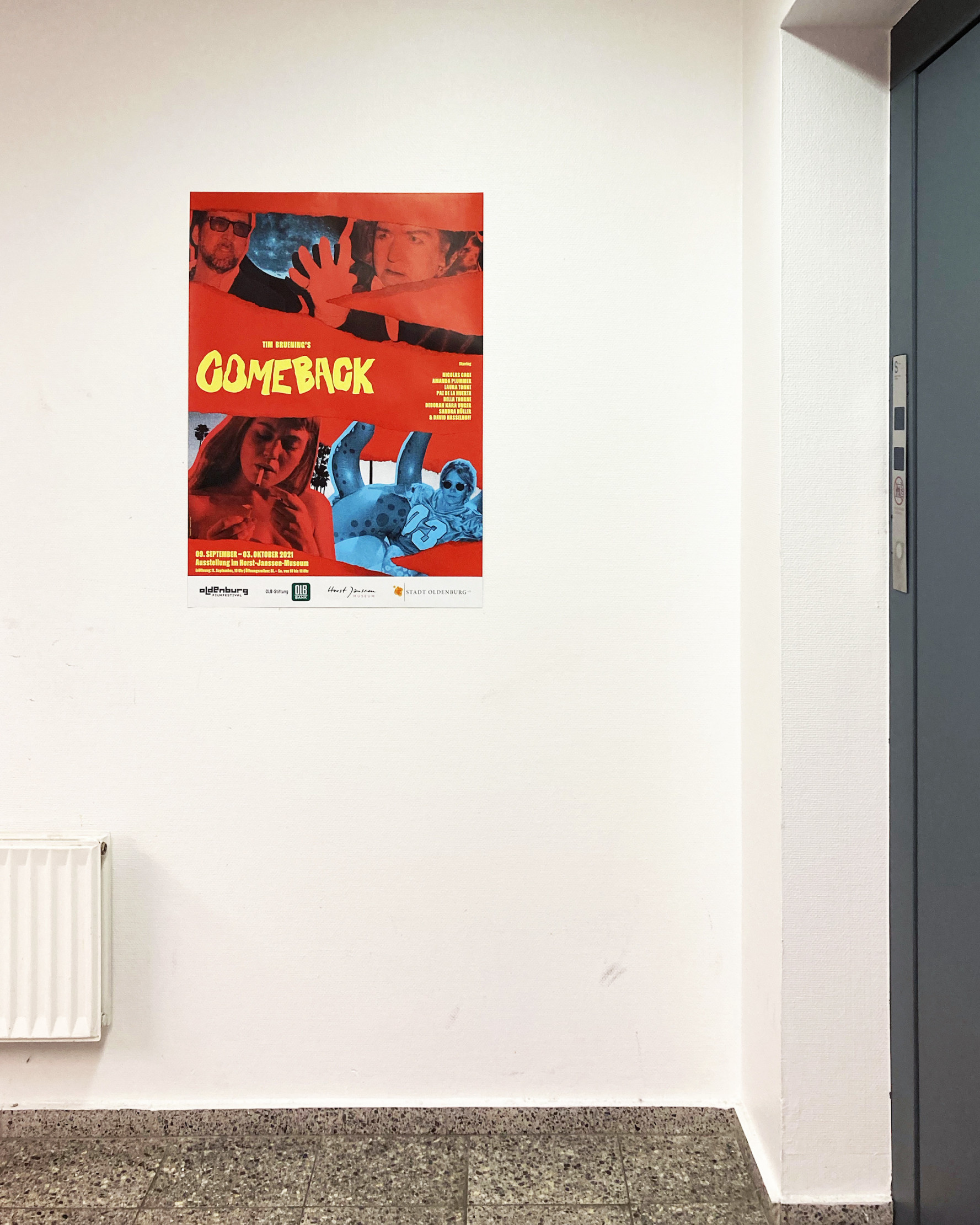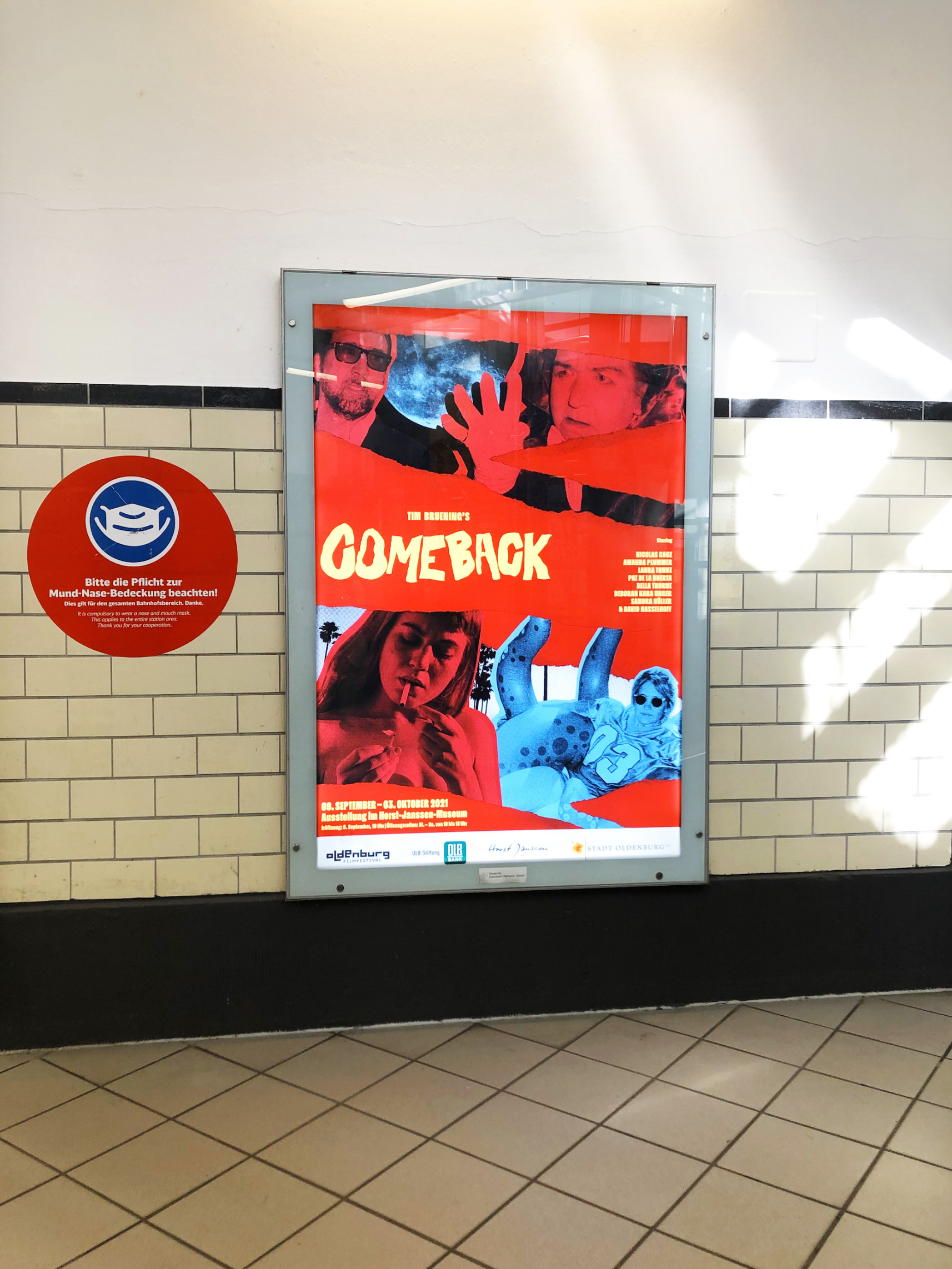
Comeback
Poster
Poster and Flyer for the exhibition COMEBACK by photographer Tim Bruening at the Horst-Janssen Museum in Oldenburg. In his work, the photographer explores the theme of cinema; showing images of stars on the red carpet in Cannes and at the Oldenburg Film Festival, accompanied by actual and soon-to-be film sets. As the icing on the cake, photographs of his grandma staged as various popular film characters are included in the exhibition.
The design is reminiscent of old film noir posters and shows a few protagonists of the exhibition as well as Tim Bruening’s grandma as Dracula.
Typeface: Founders Grotesk by Klim Type Foundry & Norbert by Philipp Neumeyer